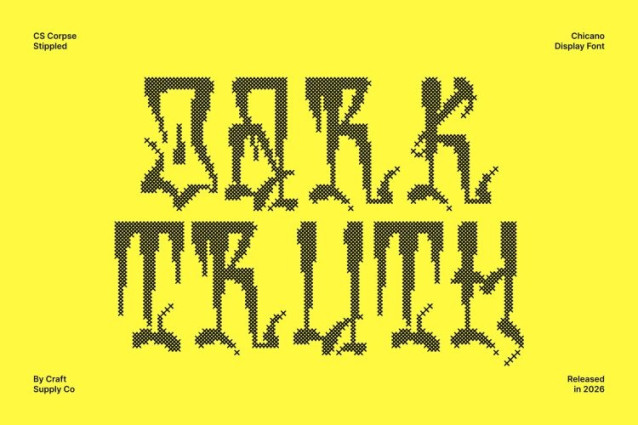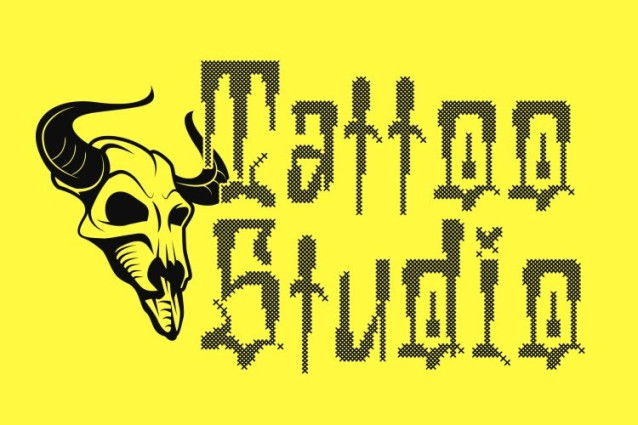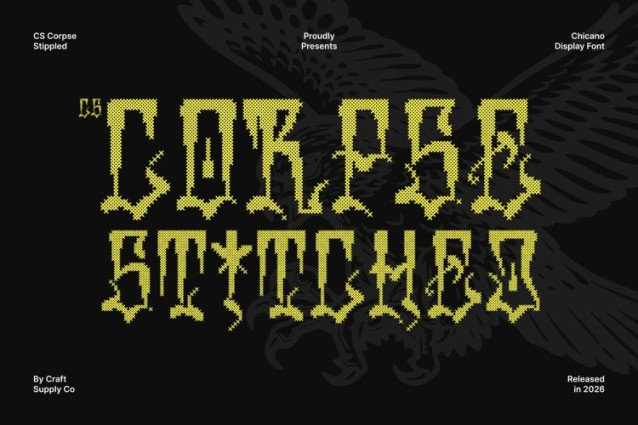
CS Corpse Stitched Font
CS Corpse Stitched Font is a striking Chicano graffiti display font that captures the bold spirit of street art and urban creativity. Its expressive letterforms feature thick strokes, sweeping curves, and energetic shapes that embody the freedom and individuality of graffiti culture. Enhanced with a stitched style inspired by thread sewn or embroidered on fabric, this version introduces a handcrafted texture that adds warmth and tactile depth to its dynamic urban aesthetic.
Expressive Letterforms with Embossed Stitch Detail
The vibrant shapes of this font are enriched with a distinctive cross-shaped stitch pattern layered across each character. This embroidered effect creates an embossed, fabric-like texture that enhances visual depth while maintaining the bold, expressive flow of graffiti lettering. The stitched detailing introduces a classic, nostalgic, relaxed.
Dynamic Street Art Energy
Rooted in the visual language of graffiti and Chicano lettering traditions, this font delivers a powerful typographic presence filled with movement and attitude. Its flowing curves and bold forms reflect the creativity and authenticity of urban art, making it ideal for projects that celebrate individuality, cultural expression, and street-inspired design.
Perfect for Urban and Creative Projects
This is perfect for music posters, streetwear branding, event flyers, album artwork, and urban-themed graphics. Its fusion of graffiti-inspired lettering and stitched craftsmanship creates a unique visual identity that stands out with bold character, cultural energy, and artistic expression.